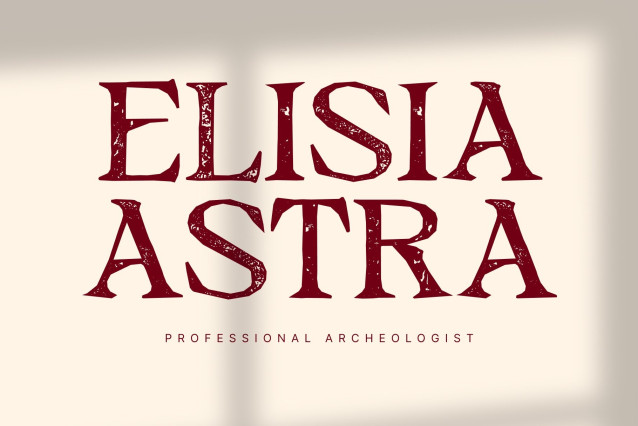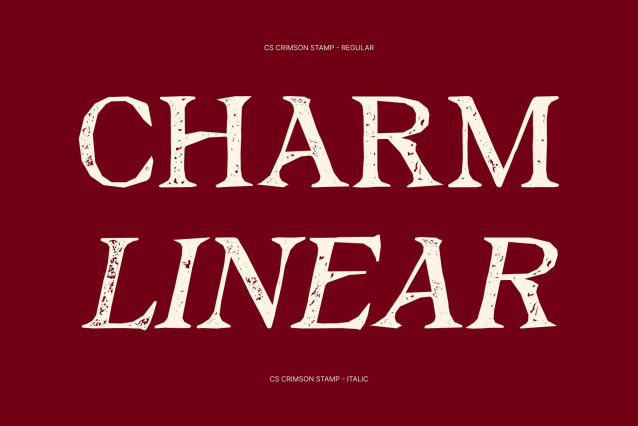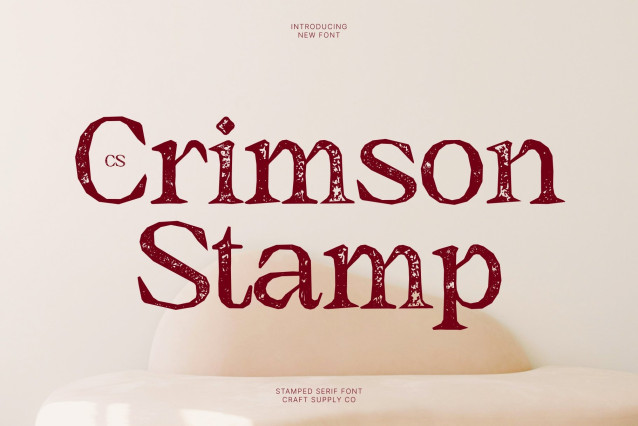
CS Crimson Stamp Font
CS Crimson Stamp – Classic Font: Timeless Elegance and Sophistication
Modern Serif with Classic Charm
This font is a modern serif typeface that beautifully blends traditional elegance with contemporary refinement. Its graceful letterforms and balanced proportions create a timeless visual presence, making it an excellent choice for designs that aim to feel sophisticated and enduring. The added stamp texture introduces a subtle vintage character, enhancing the font with artistic depth and classic appeal.
Perfect for High-End Branding and Editorial Layouts
Designed for premium applications, this font shines in luxury branding, editorial layouts, and elegant invitations. The harmony between modern clarity and classic styling ensures that every composition feels polished, refined, and memorable.
Exudes Timeless Beauty
The font’s refined serifs and carefully crafted structure capture the essence of heritage typography while maintaining a fresh, contemporary edge. The distressed stamp effect adds warmth and authenticity, giving each letter a graceful yet slightly nostalgic personality.